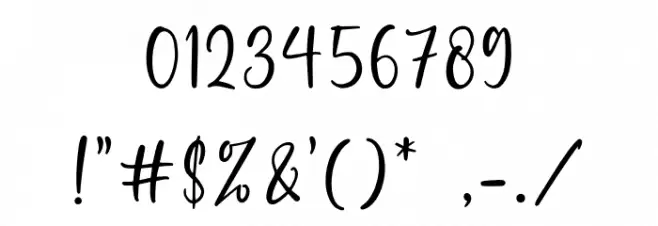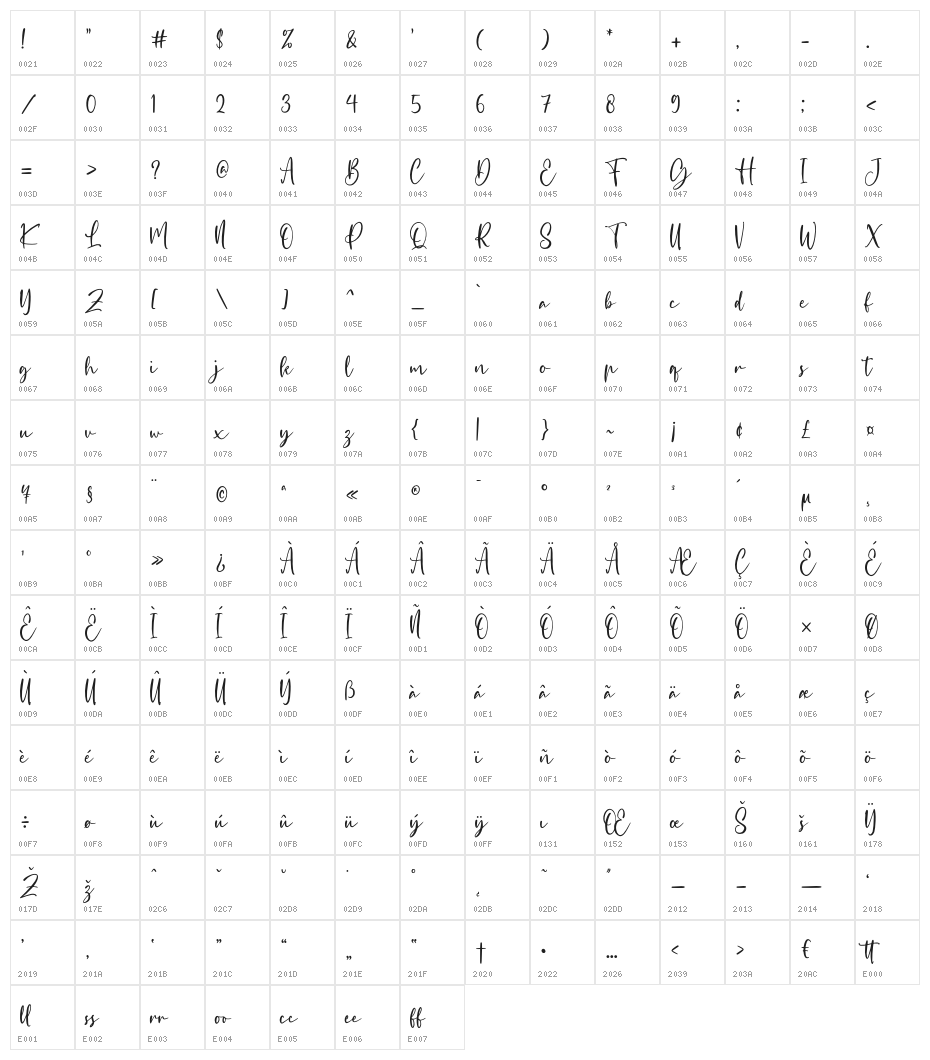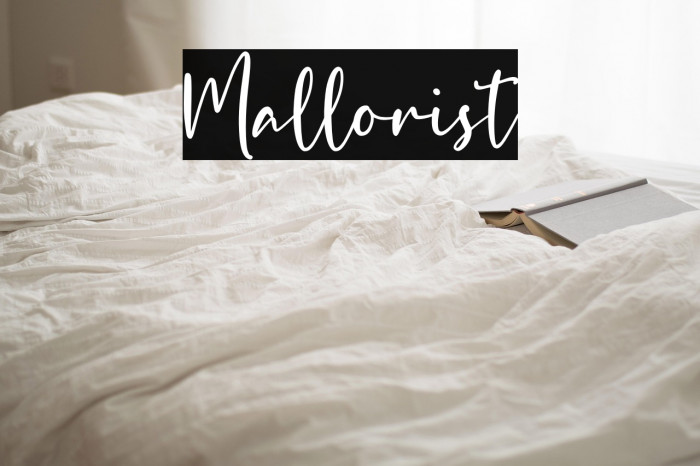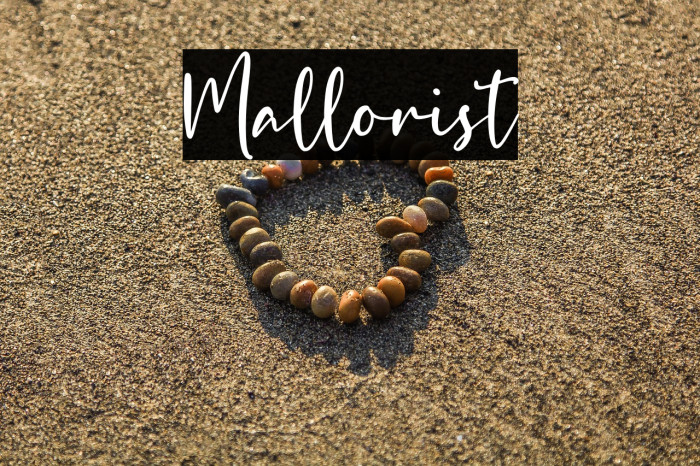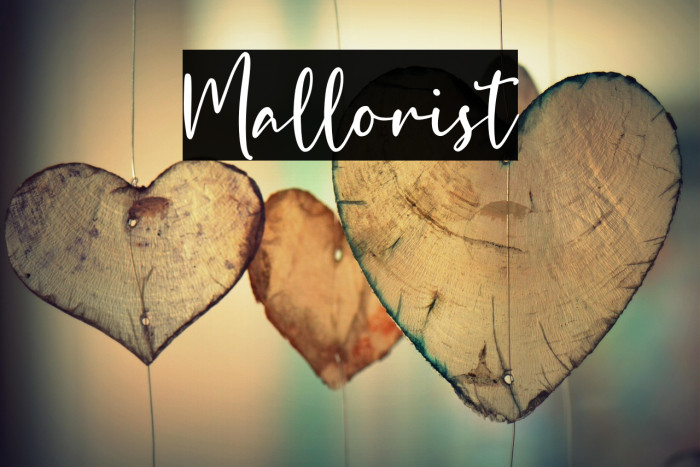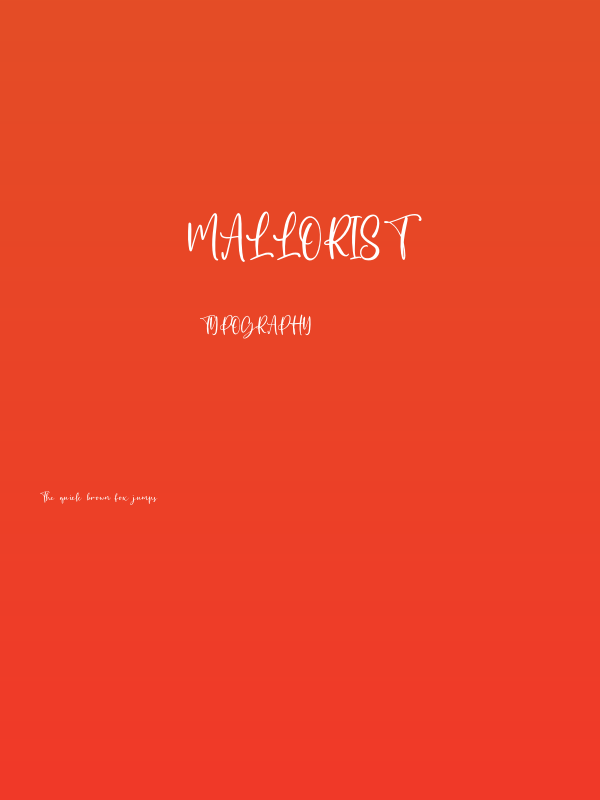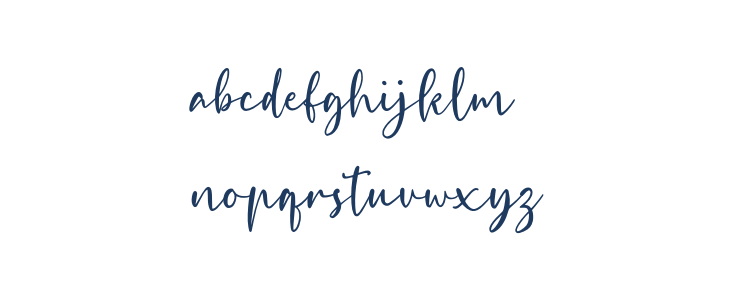
Mallorist Font
Mallorist Description
This font features a lively and expressive handwritten style, characterized by its fluid and dynamic strokes. The uppercase letters exhibit a playful yet elegant flair, with varying stroke widths that add a sense of movement. The lowercase letters maintain a consistent flow, enhancing readability while retaining a personal touch. Numbers are bold and clear, making them suitable for various applications. Special characters are thoughtfully designed to complement the overall aesthetic, ensuring versatility in usage. The font's organic feel makes it ideal for projects that require a personal or artistic touch.
A lively and expressive handwritten font with fluid strokes and playful elegance from Regular fonts.